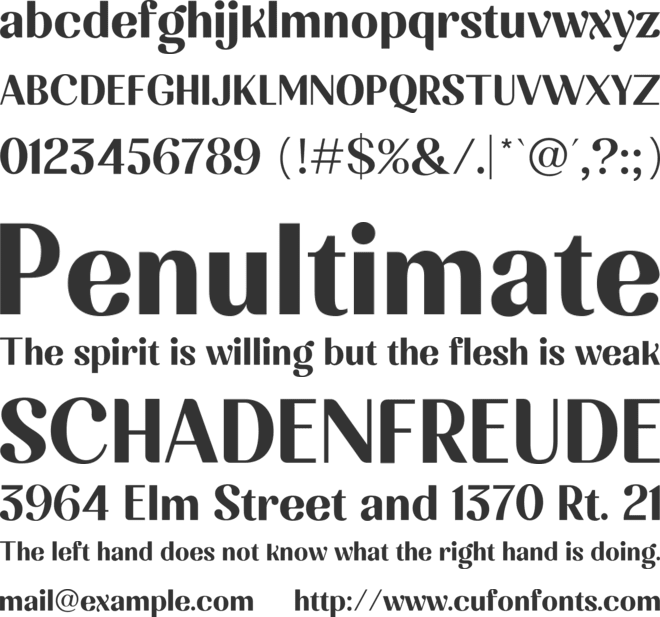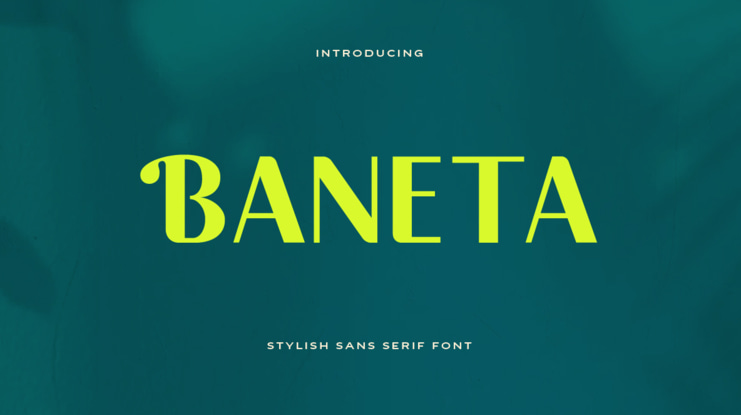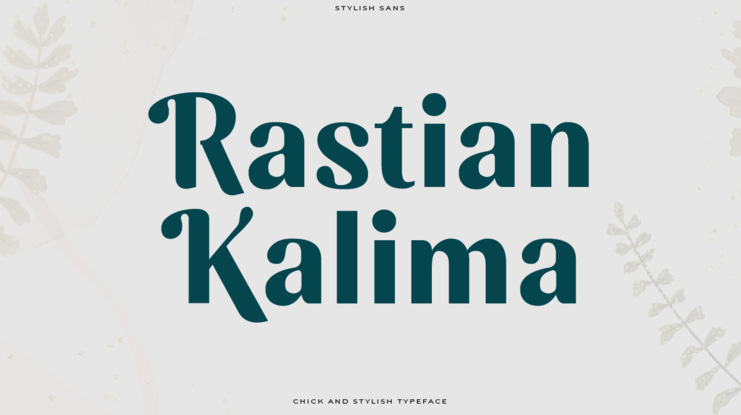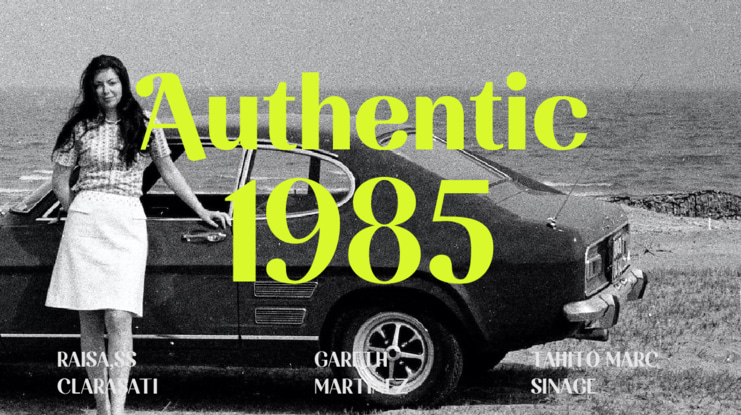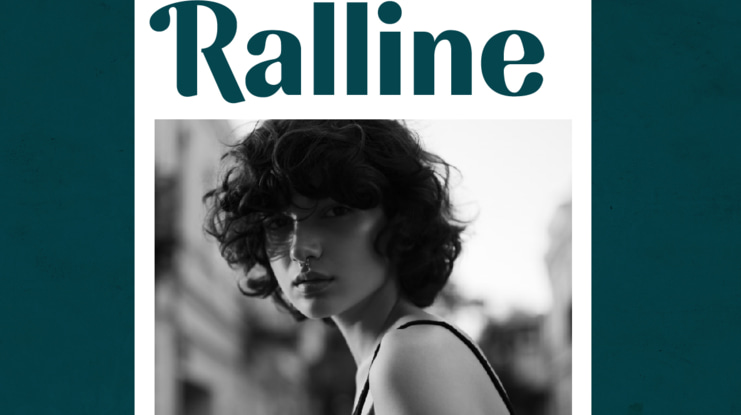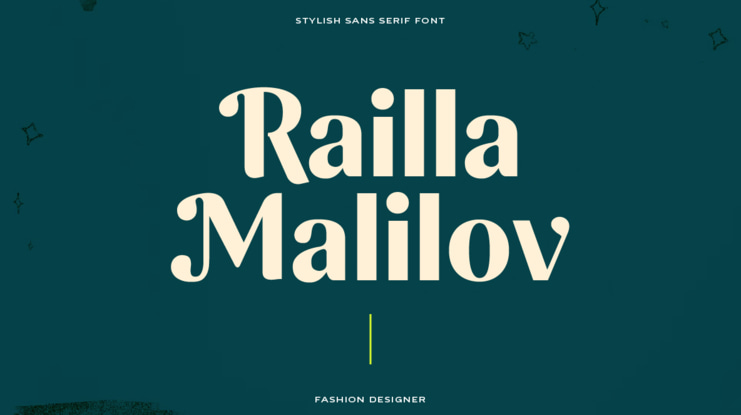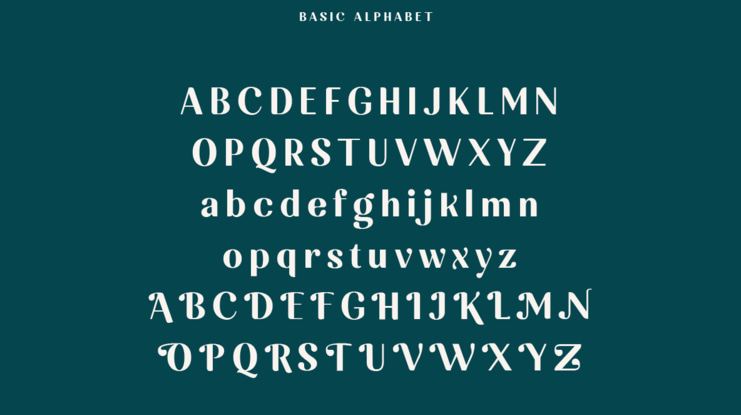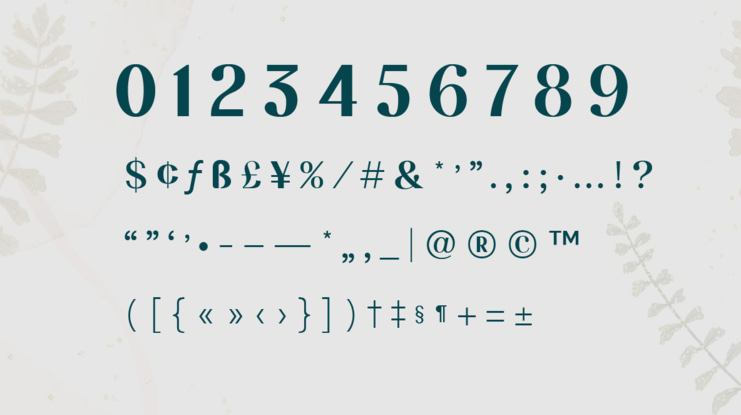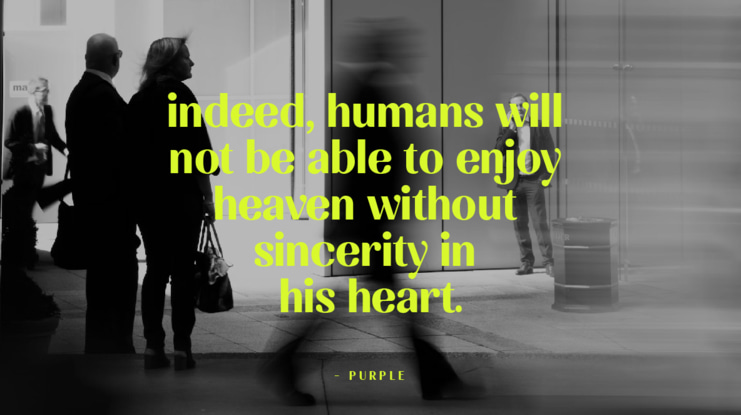
Baneta Font
The baneta font Stylish sans serif is a modern, clean typeface characterized by its simplicity, elegance, and legibility. This typeface is distinguished by the lack of serifs or small lines that extend from the letters, giving it a sleek, minimalist look.
Baneta Stylish sans serif font is popular in various design applications such as advertising, branding, web design, and print media. They offer excellent legibility and readability, making them suitable for both large and small text sizes. The sharp, geometric letterforms and clean lines of the letters convey a contemporary and refined feel, while their uniformity and consistency create a sense of balance and harmony.
Overall, a stylized sans-serif font is an excellent choice for conveying a sense of modernity, sophistication, and professionalism in a variety of design contexts.